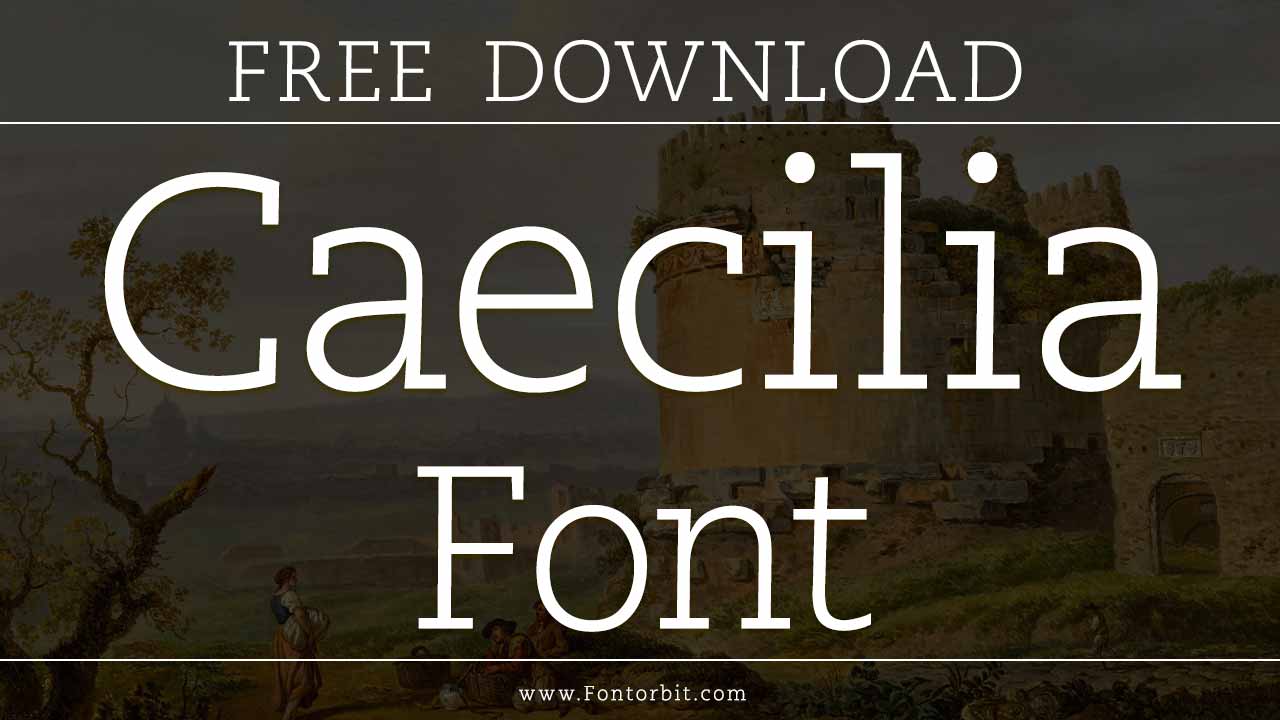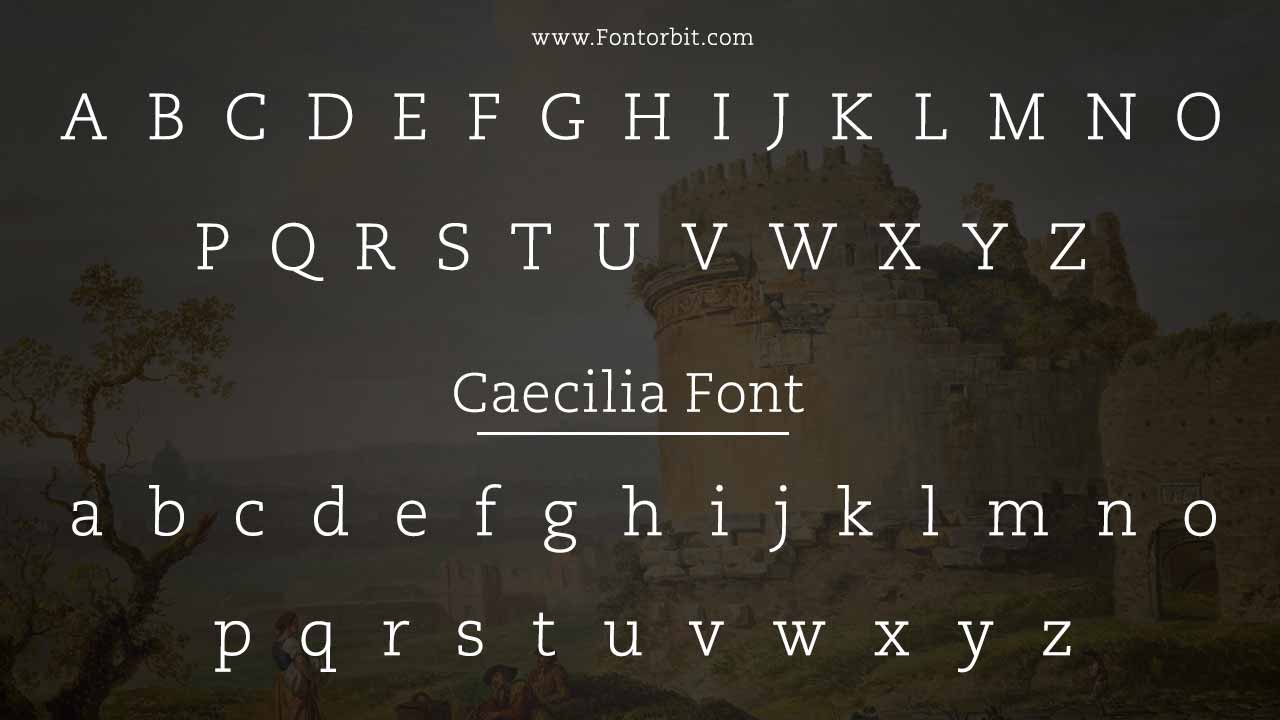
In modern branding, your choice of typeface shapes visual appeal and readability. The Caecilia font, designed by Peter Matthias Noordzij and released by Linotype GmbH, adds versatility and sophistication. This slab-serif typeface enhances branding materials with a refined, modern look. It works well for digital content, printed materials, and website design. Caecilia ensures a lasting impression with its clean and professional style.
Font Overview: Caecilia Font Family
Caecilia is a slab-serif font that is highly regarded in design communities for its clean lines, geometric shapes, and readability. The font has several versions. Each version offers a distinct weight for different applications. These include
- Caecilia LT Std Light,
- Caecilia LT Std Bold, and
- Caecilia LT Std Heavy
For a more comprehensive suite, Caecilia LT Pro and PMN Caecilia are perfect for more professional or commercial uses. Caecilia is a slab serif typeface with strong, sturdy letterforms. It stands out on large-scale signage and makes a bold statement in headlines.
The PMN Caecilia Sans version offers a sans-serif alternative for projects that require a cleaner, less formal aesthetic. Whether you’re designing for digital platforms or printed materials, Caecilia provides the perfect balance of personality and readability.
Why Caecilia Font Works For Branding
Caecilia font is ideal for modern branding due to its clarity and versatility. The slab serif design conveys strength and dependability. Clean, crisp characters ensure legibility across various mediums. The Caecilia font family includes a small caps feature, adding elegance to headings and captions. Its timeless yet contemporary feel makes it a popular choice for editorial design.
This typeface supports a wide range of languages. The character map of Caecilia includes all essential glyphs and punctuation, offering all the tools needed for precise typography in your branding.
Using Caecilia Font For Different Branding Materials
Website Design
Readability and user experience are crucial when designing a website. Using Caecilia as the default font for your website ensures that your content is easy to read while still reflecting a professional and modern design aesthetic. You can use Caecilia LT Std Bold for headings and important content and Caecilia LT Std Light for body text, creating a clear visual hierarchy that guides the reader’s eye. The font’s clear, straightforward design makes it perfect for website typography that doesn’t overwhelm users.
Printed Materials
In printed materials such as brochures, flyers, and business cards, Caecilia’s font family can create a visually appealing layout that stands out. The Caecilia LT Std Heavyweight, for example, is excellent for impactful headings and titles. At the same time, the Caecilia LT Std Italic weight is perfect for emphasizing certain words or phrases in a more sophisticated way. The SVG format of the font allows for crisp rendering when using the typeface in graphic design software, ensuring your printed materials look sharp and professional.
Editorial Design
In editorial design, where text-heavy layouts are common, Caecilia offers the perfect blend of readability and style. Whether you’re designing a magazine, newsletter, or book cover, the Caecilia LT Std Italic can add a subtle flair to captions and subheadings. Text blocks set in Caecilia make long-form reading a pleasant experience. Its readability and elegance make it a popular choice for editorial design, where clarity and style are equally important.
Social Media And Marketing Materials
The Brix Slab font and FF Marselis Slab font may offer similar characteristics to Caecilia, but this typeface stands out due to its versatile nature. Caecilia ensures that your marketing materials look modern and cohesive, whether for social media graphics, banners, or advertisements. Use Caecilia for captions, headings, or call-to-action buttons to grab attention and guide visitors to take action.
Branding For Retail And Commercial Use
For retail stores and businesses, having a strong brand identity is crucial. The commercial use license of Caecilia ensures you can incorporate this typeface into your branding materials without worry. From store signage to printed materials, the font’s strong and reliable nature adds a layer of professionalism and modernity to your brand. Paired with other popular fonts, such as Trajan Pro, it can help create a cohesive and appealing brand identity.
4.What Are The Different Versions Of The Caecilia Font? The Caecilia font family includes several versions, including Caecilia LT Std Light, Bold, Italic, Heavy, and more.
6.Are There Any Similar Fonts To Caecilia? Yes, similar fonts include FF Marselis Slab, Brix Slab, and PMN Caecilia.